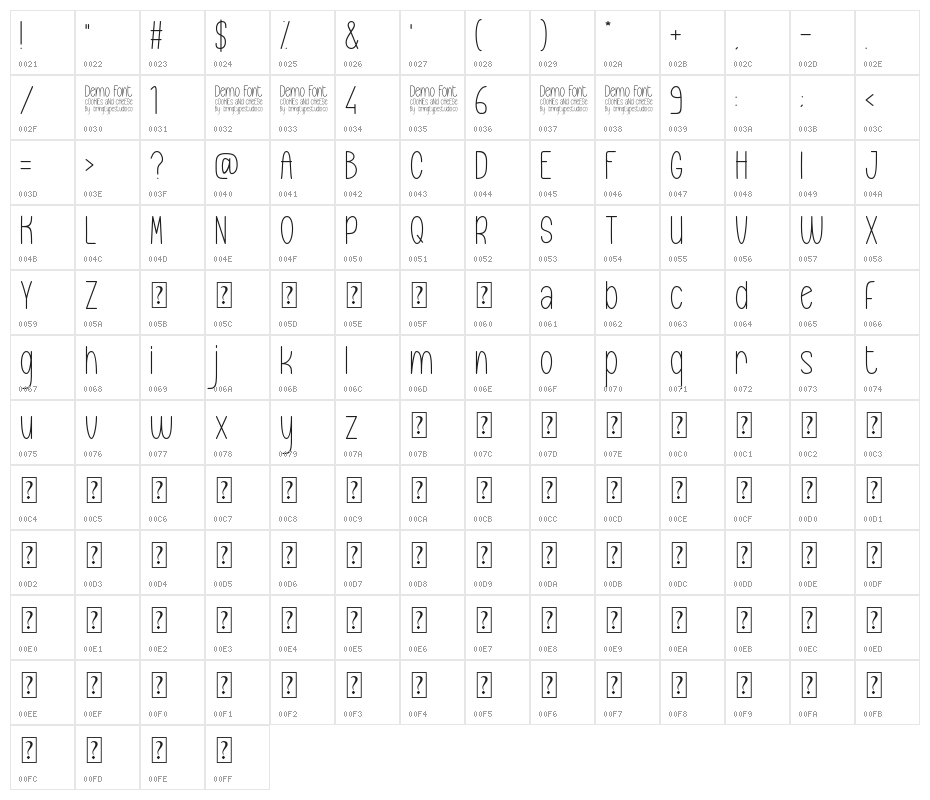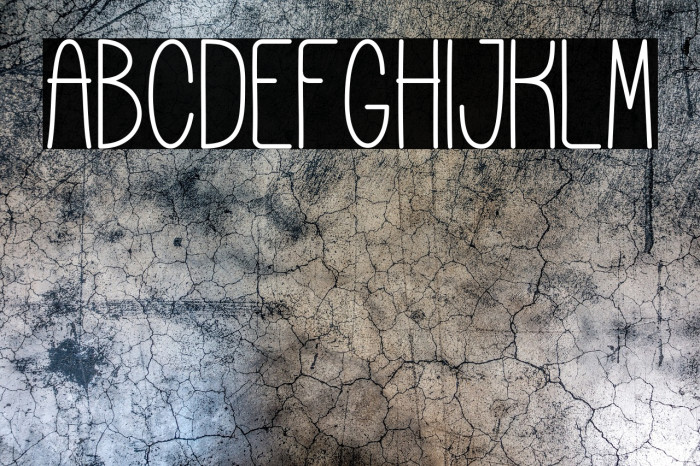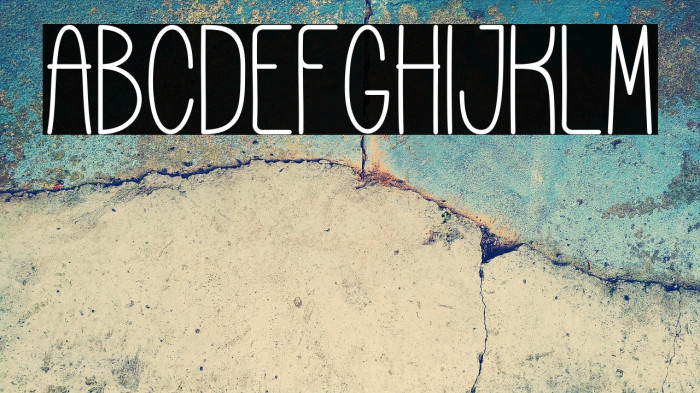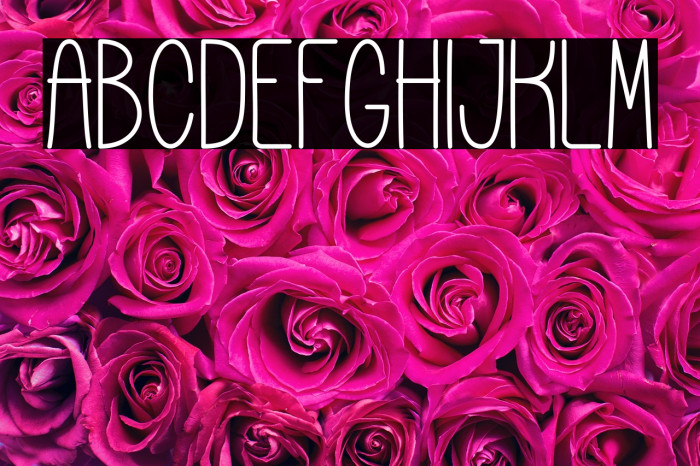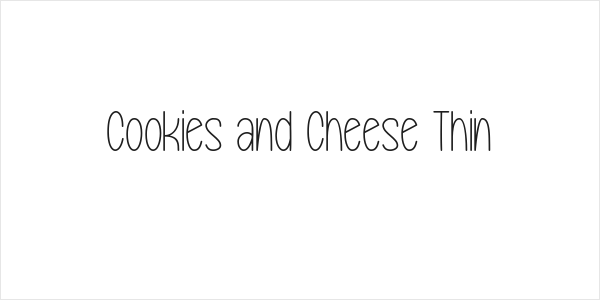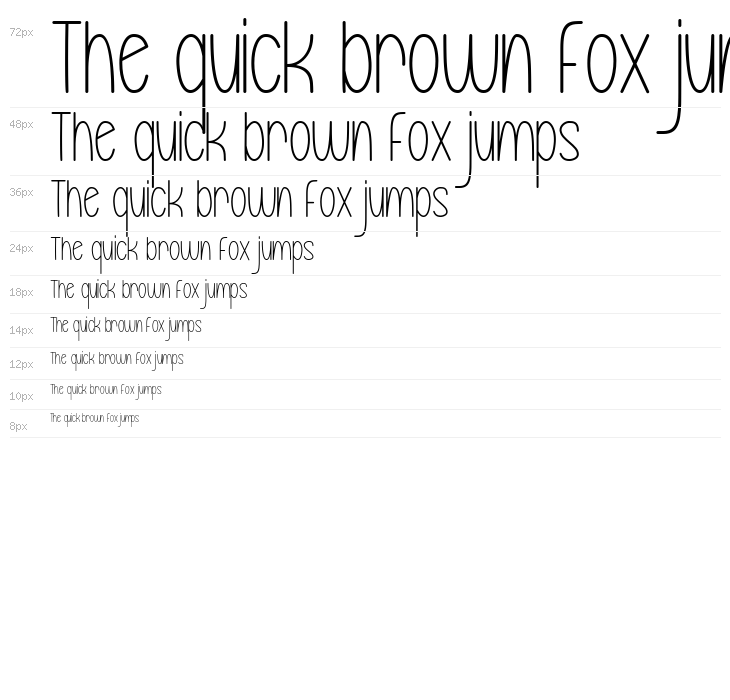
Cookies and Cheese Thin Font
Cookies and Cheese Thin Description
A playful, thin sans-serif font with elongated characters and a whimsical style.
| Use Case | Headlines, Casual text |
| Proposed Projects | Children's books, playful branding, casual invitations. |